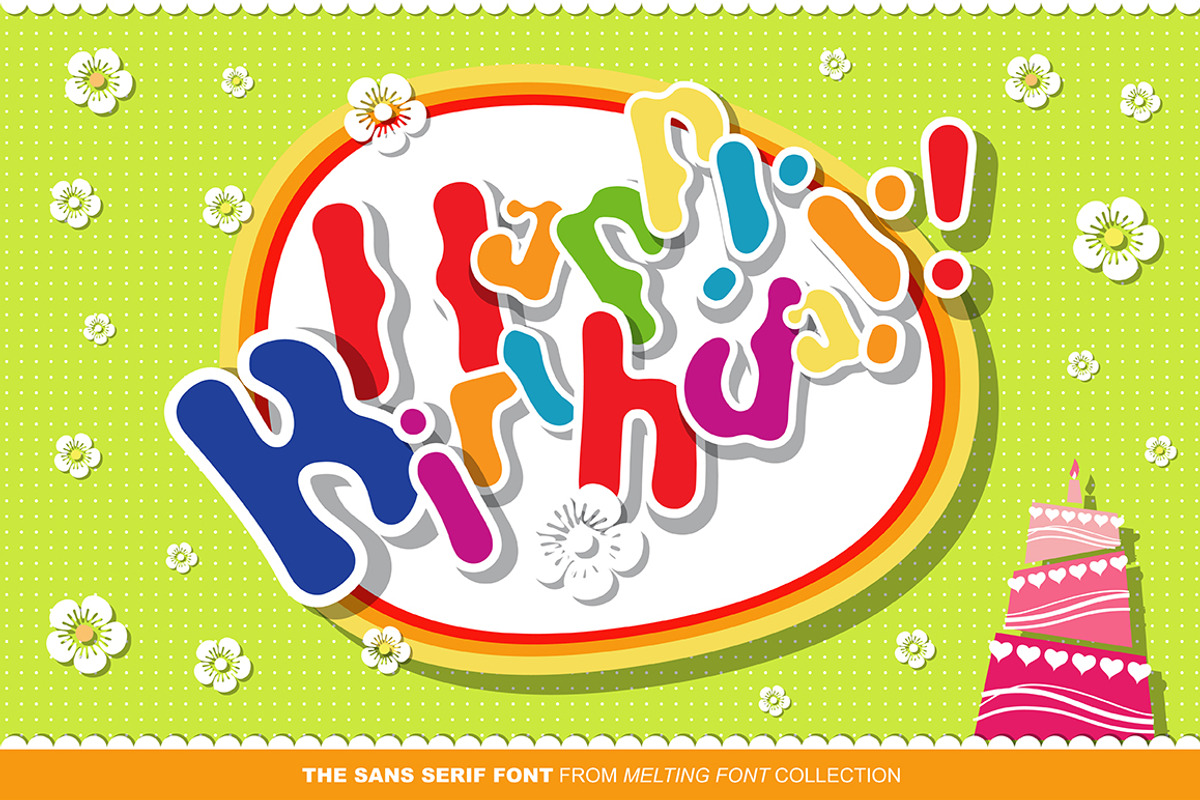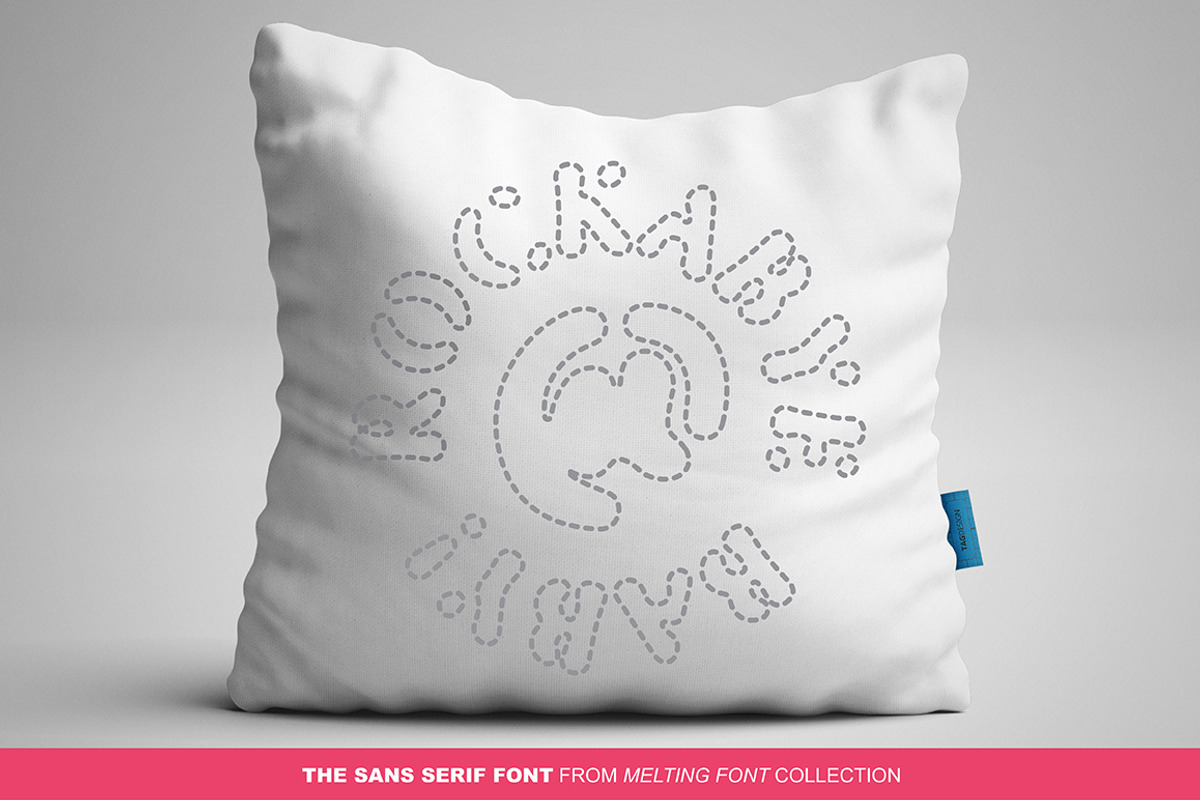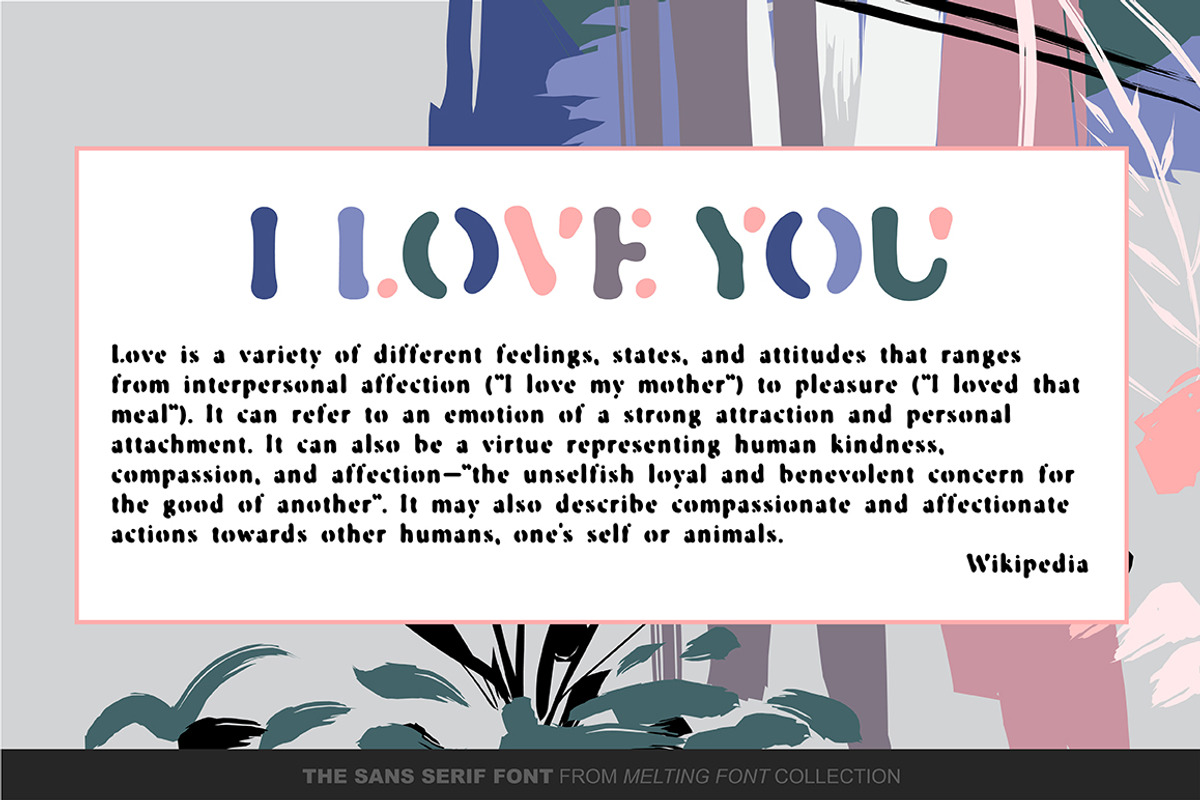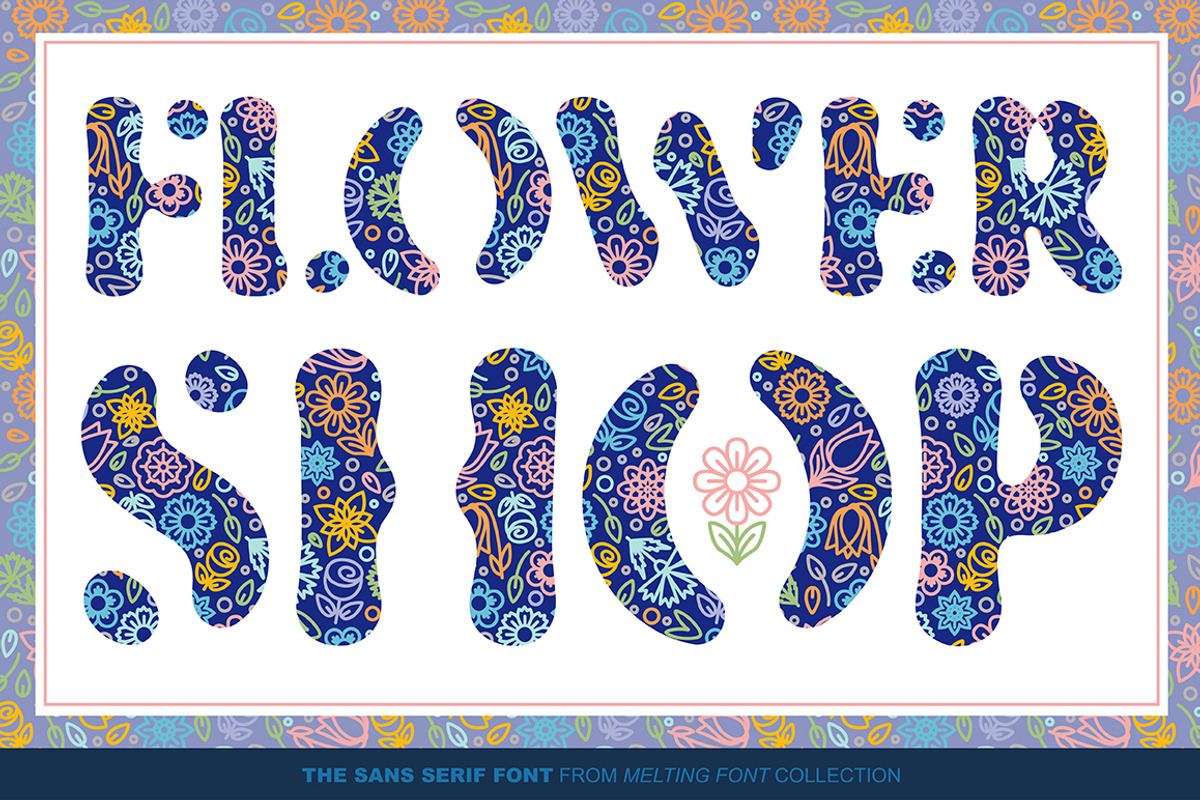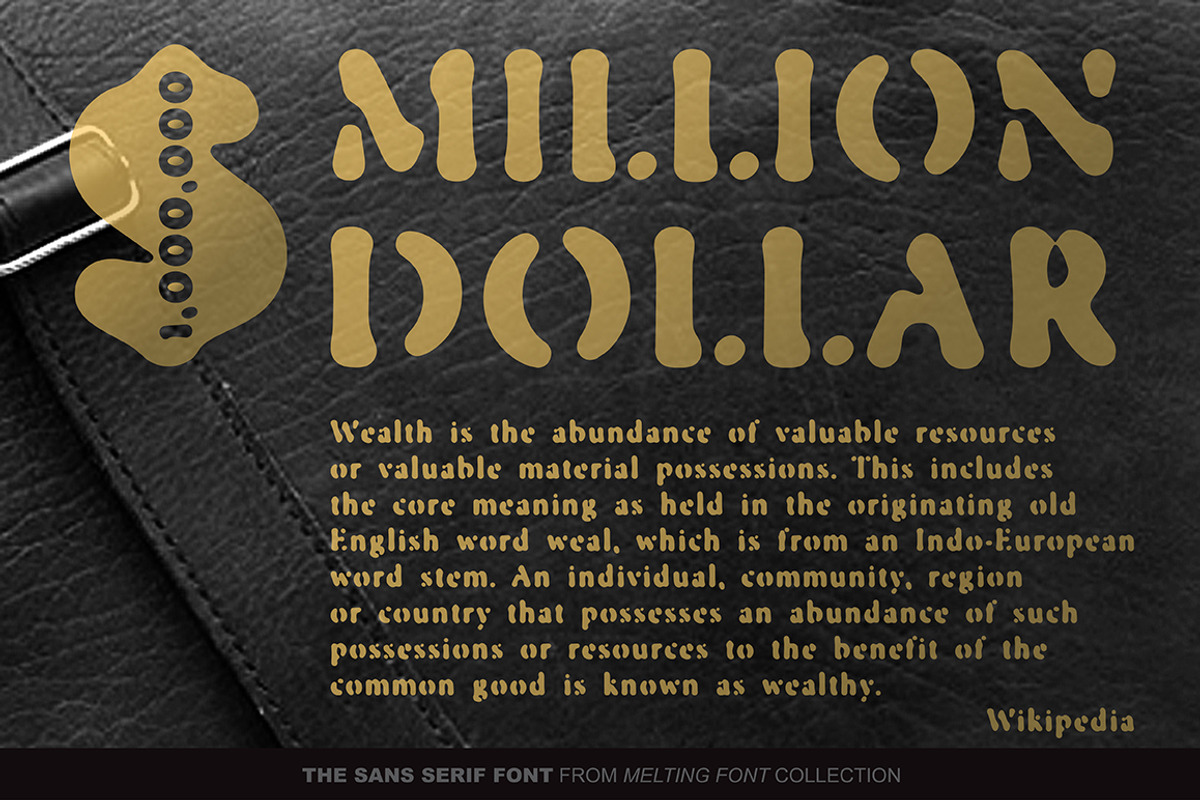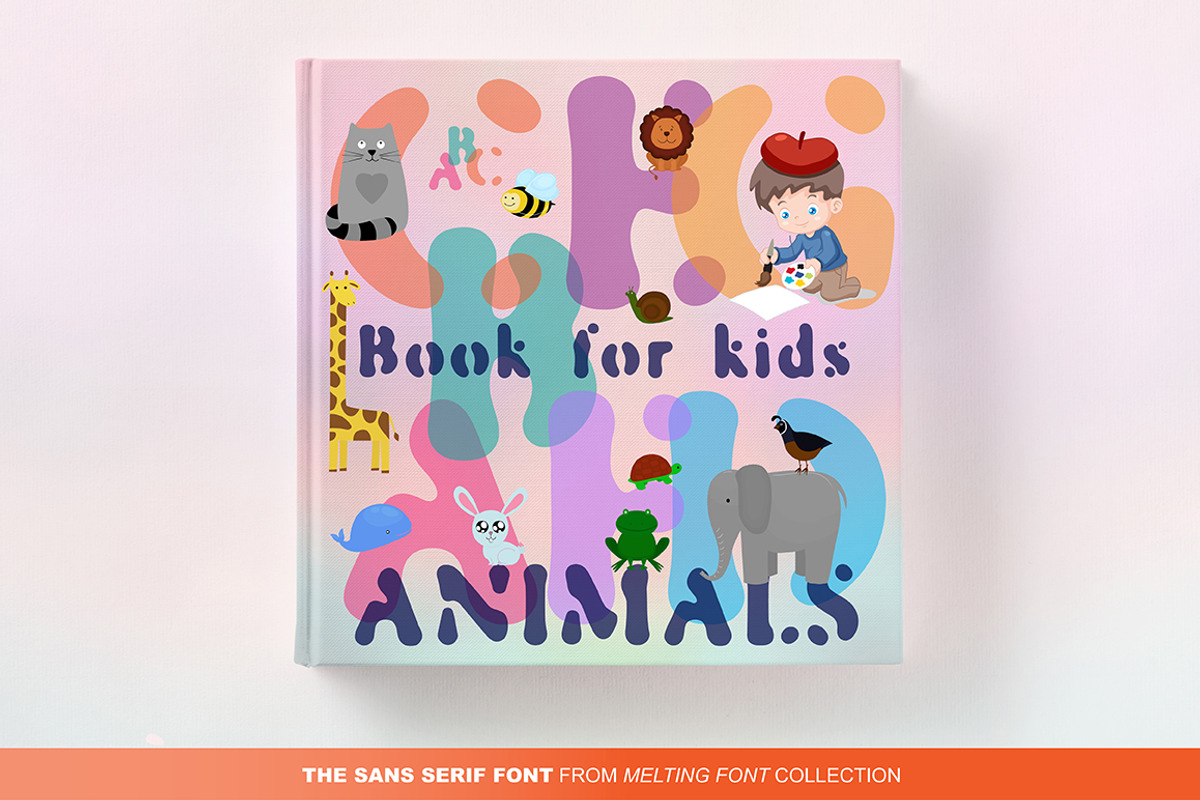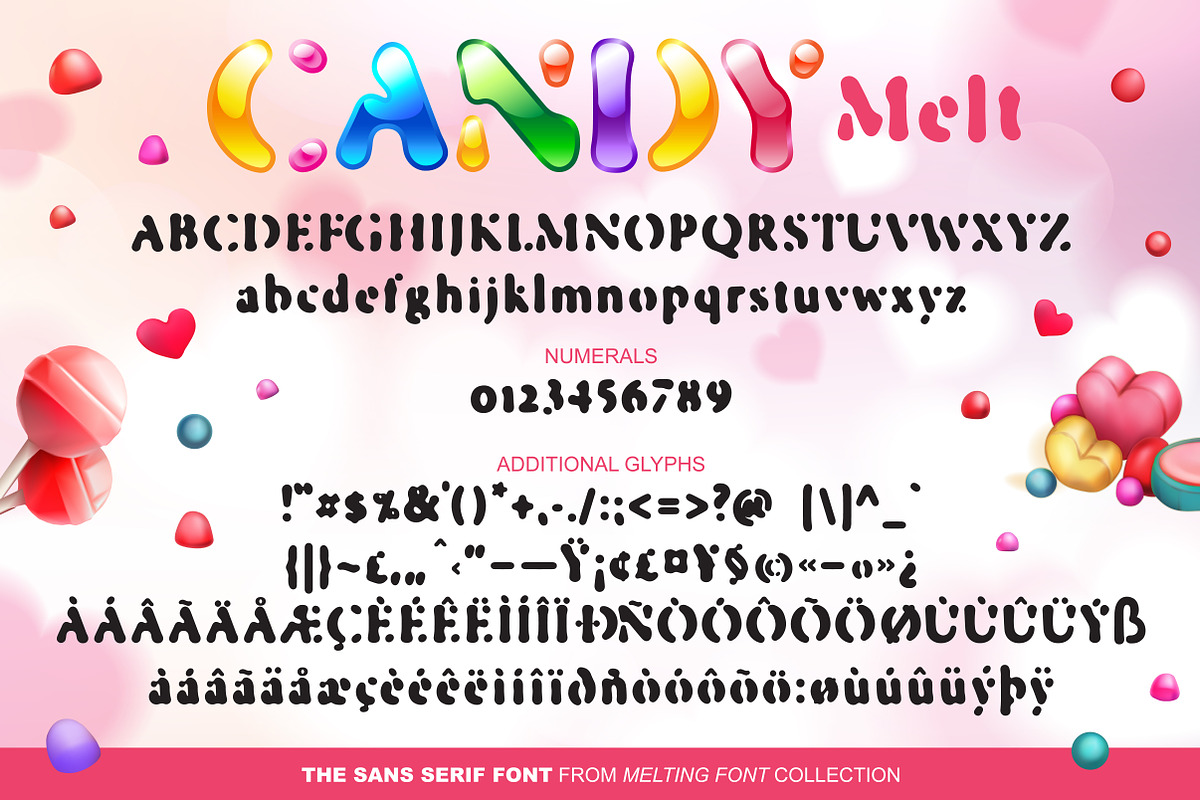
CandyMelt Sans Serif Font
CandyMelt Sans Serif Font by GalaStudio is a font selected for branding, posters, packaging, typography.
- Numbers, additional glyphs & basic punctuation are included.
- Multilingual support included for the languages based on Latin alphabet.
Why CandyMelt Sans Serif Font is worth a look
CandyMelt Sans Serif Font by GalaStudio fits naturally into Branding, posters, packaging, typography.